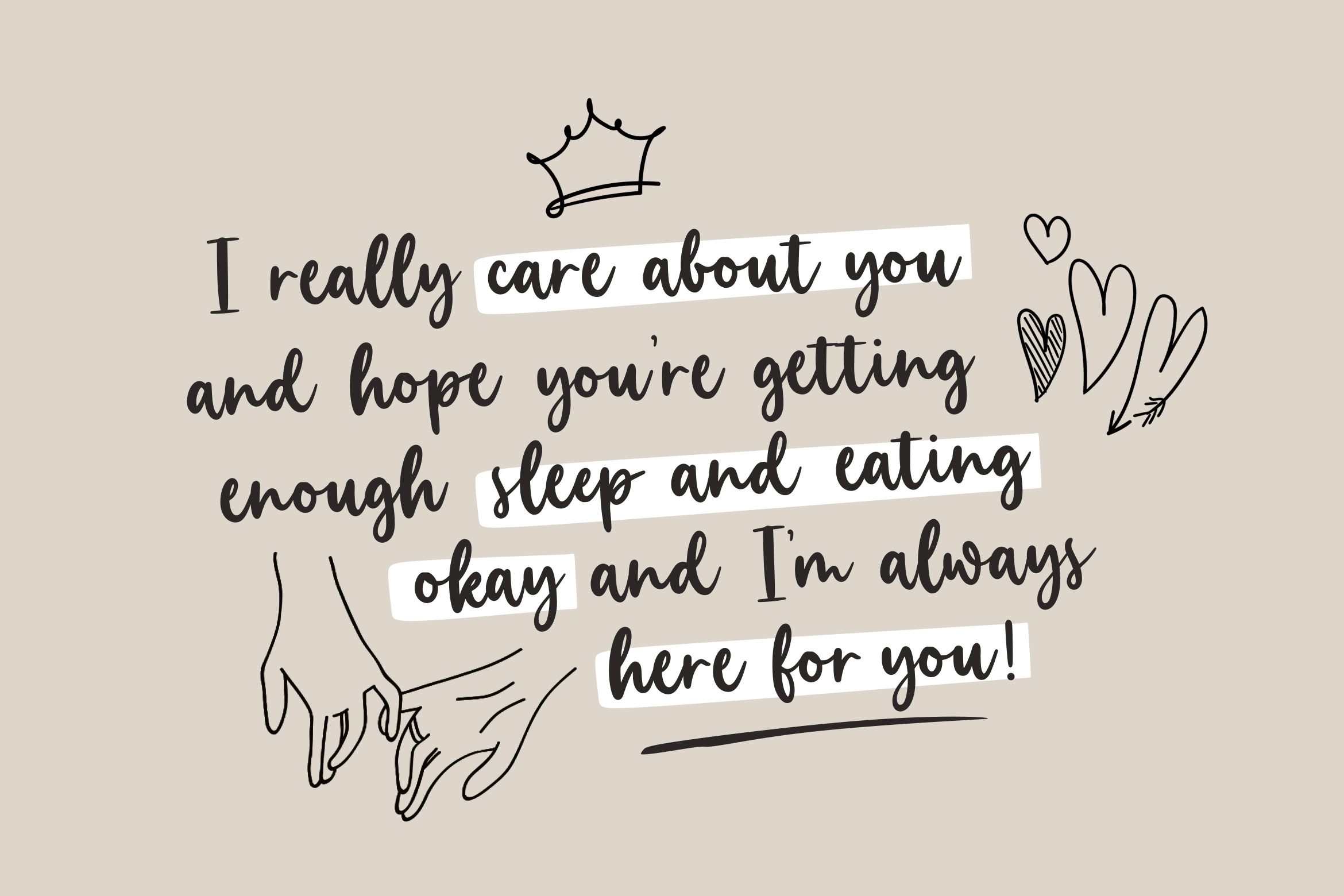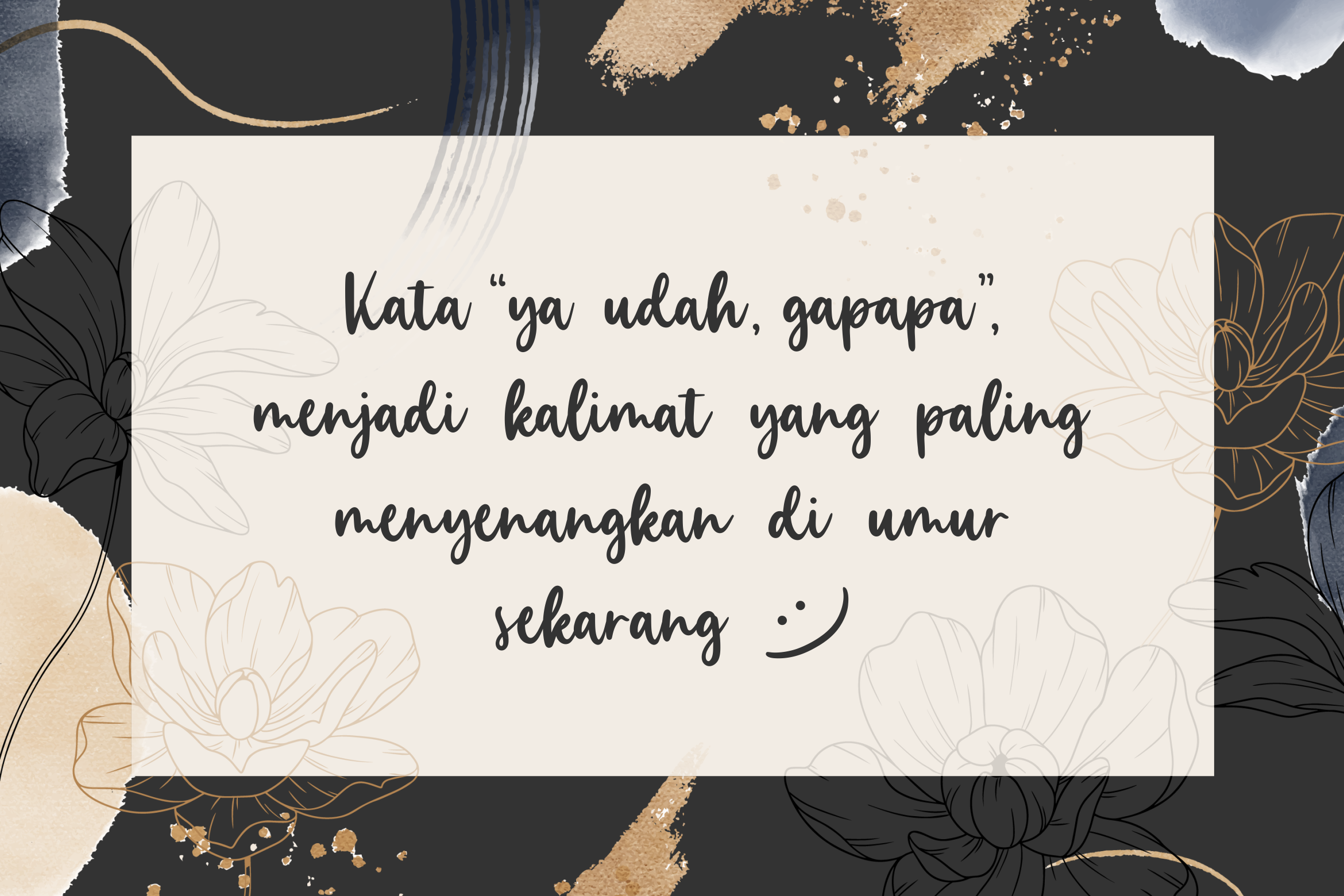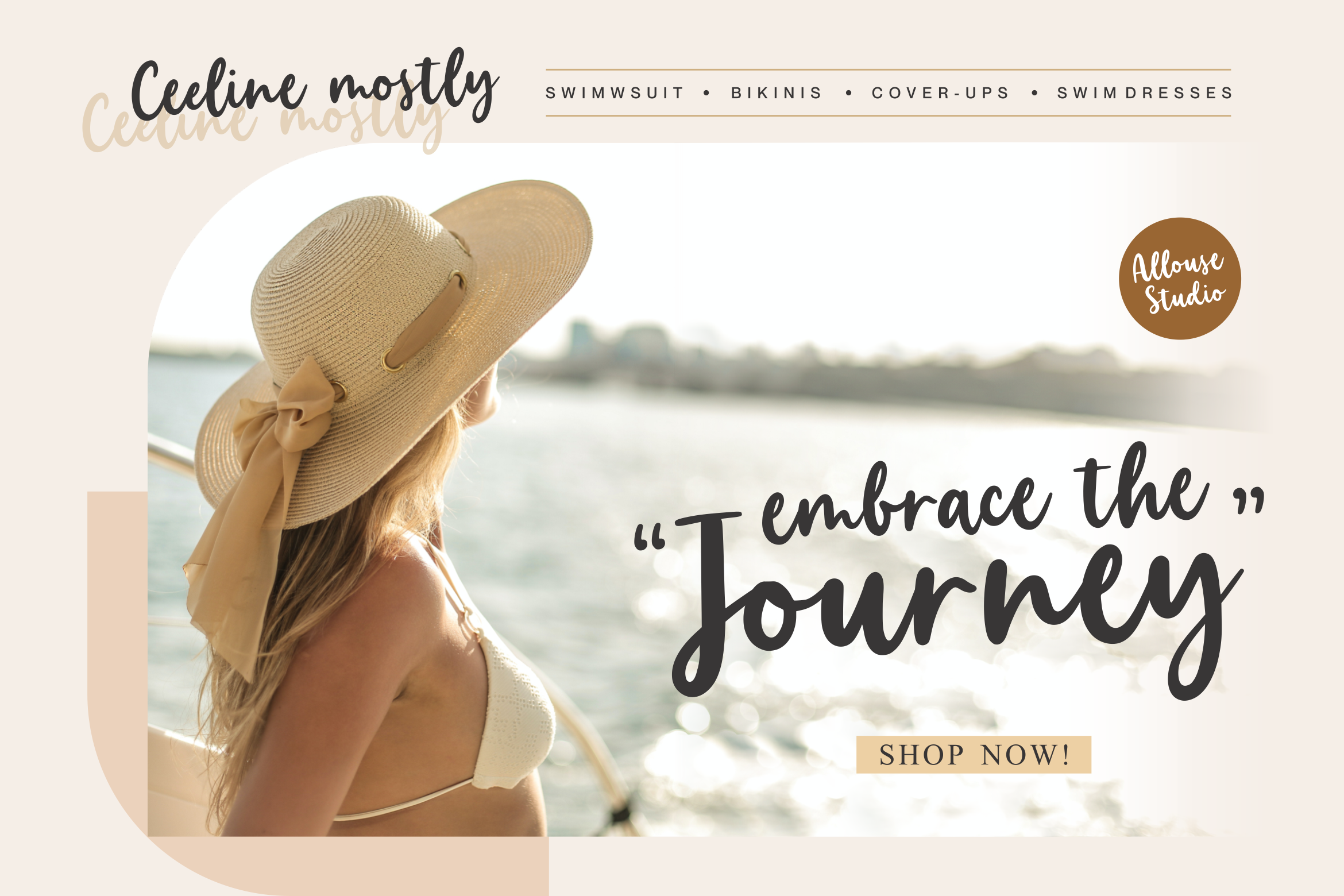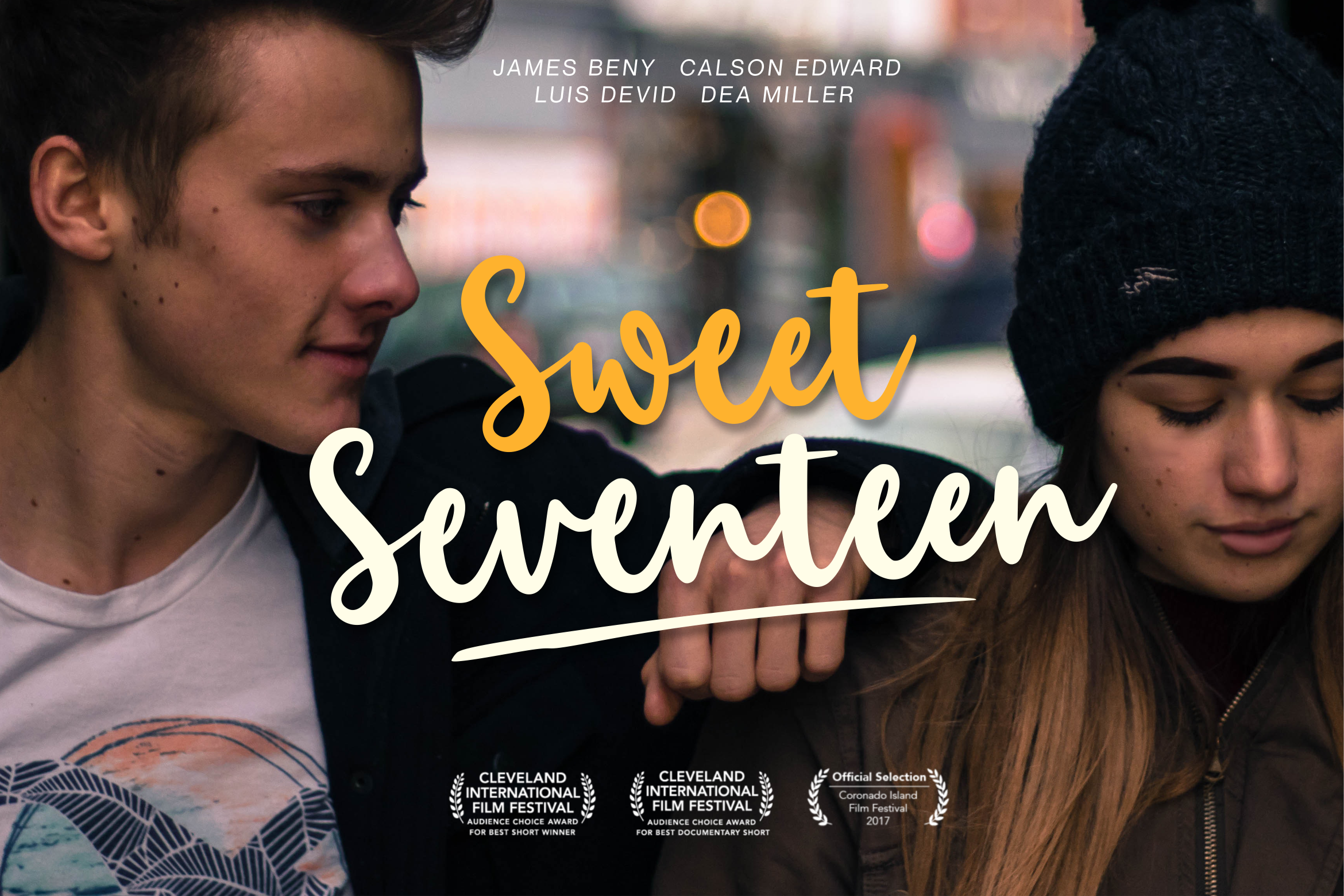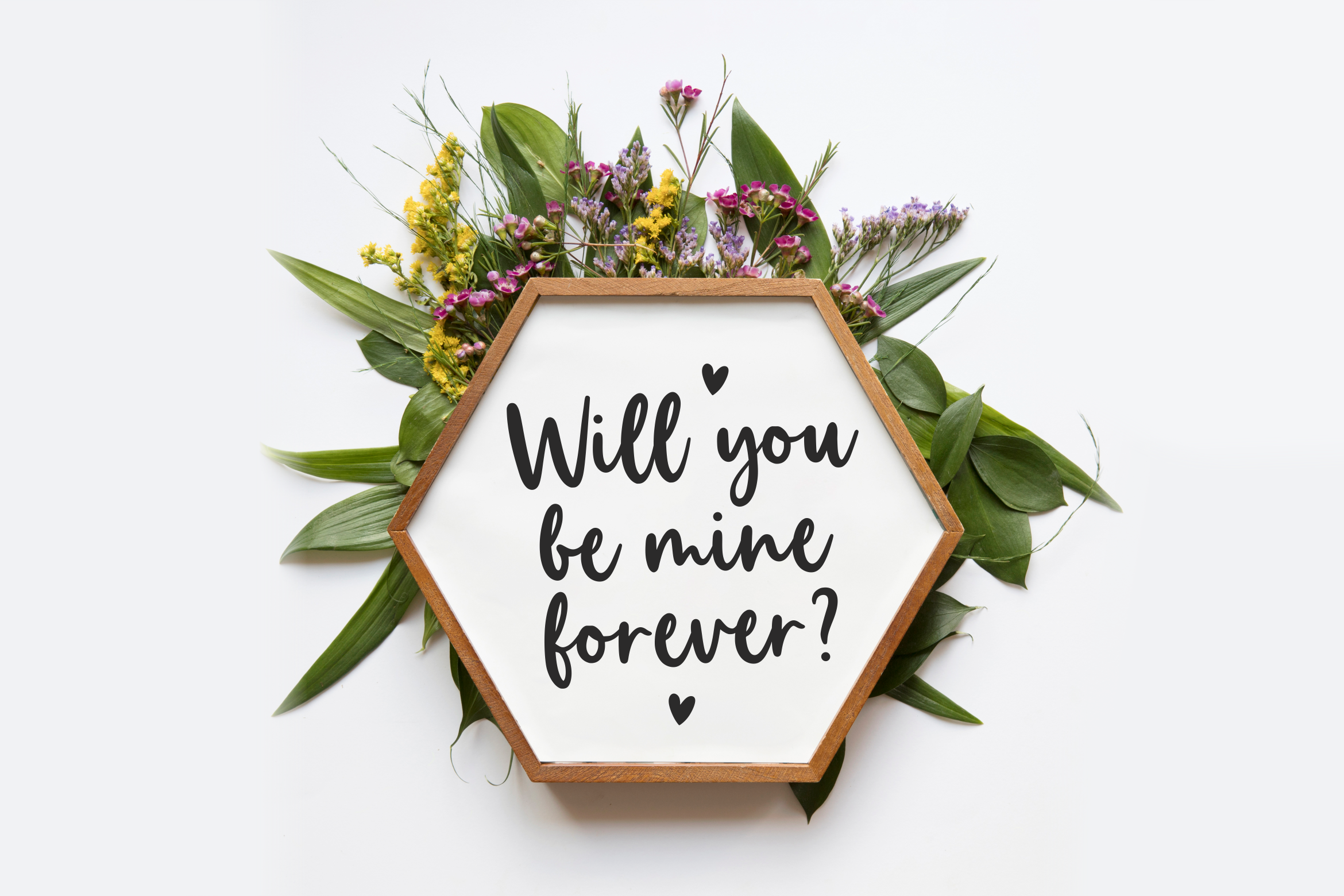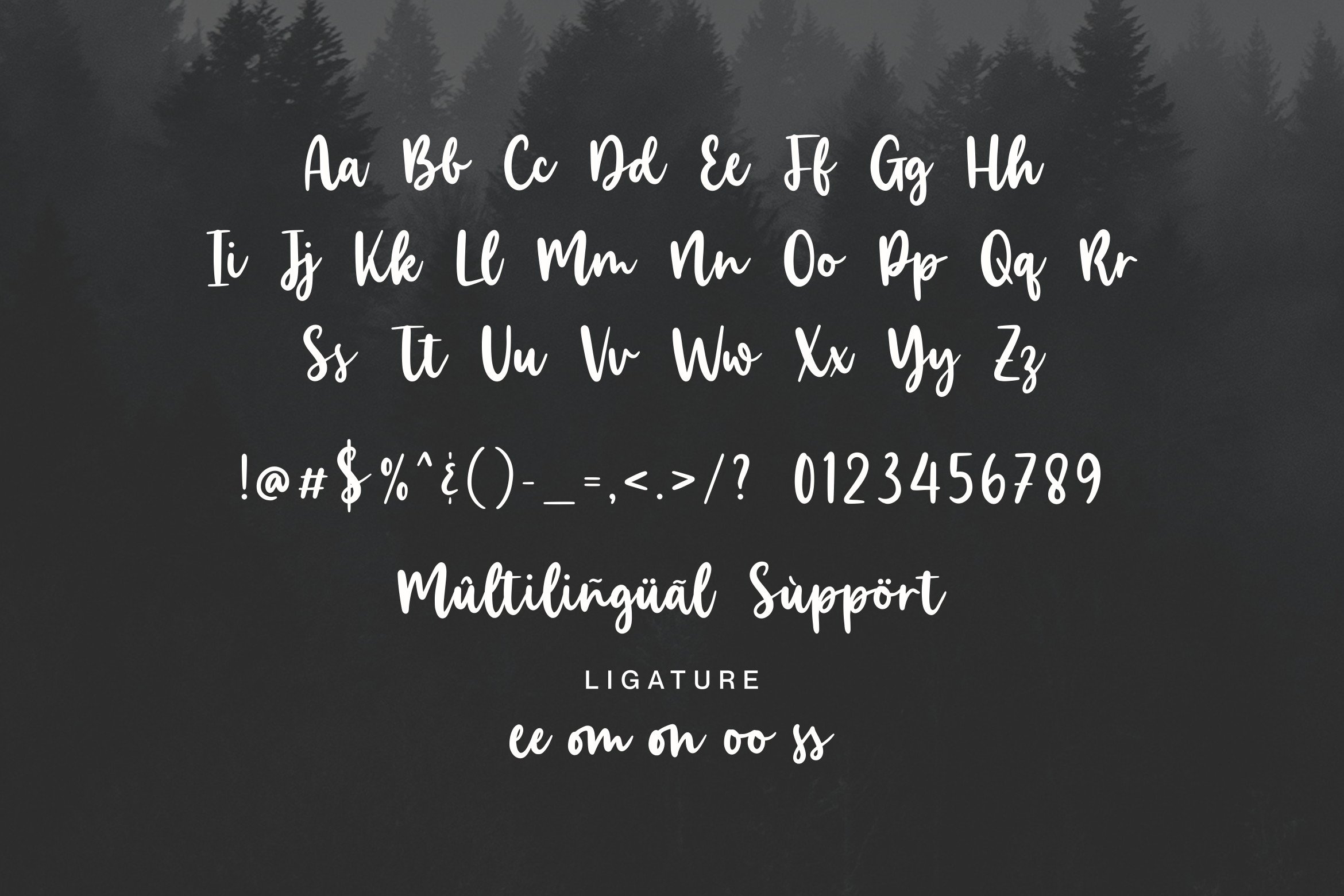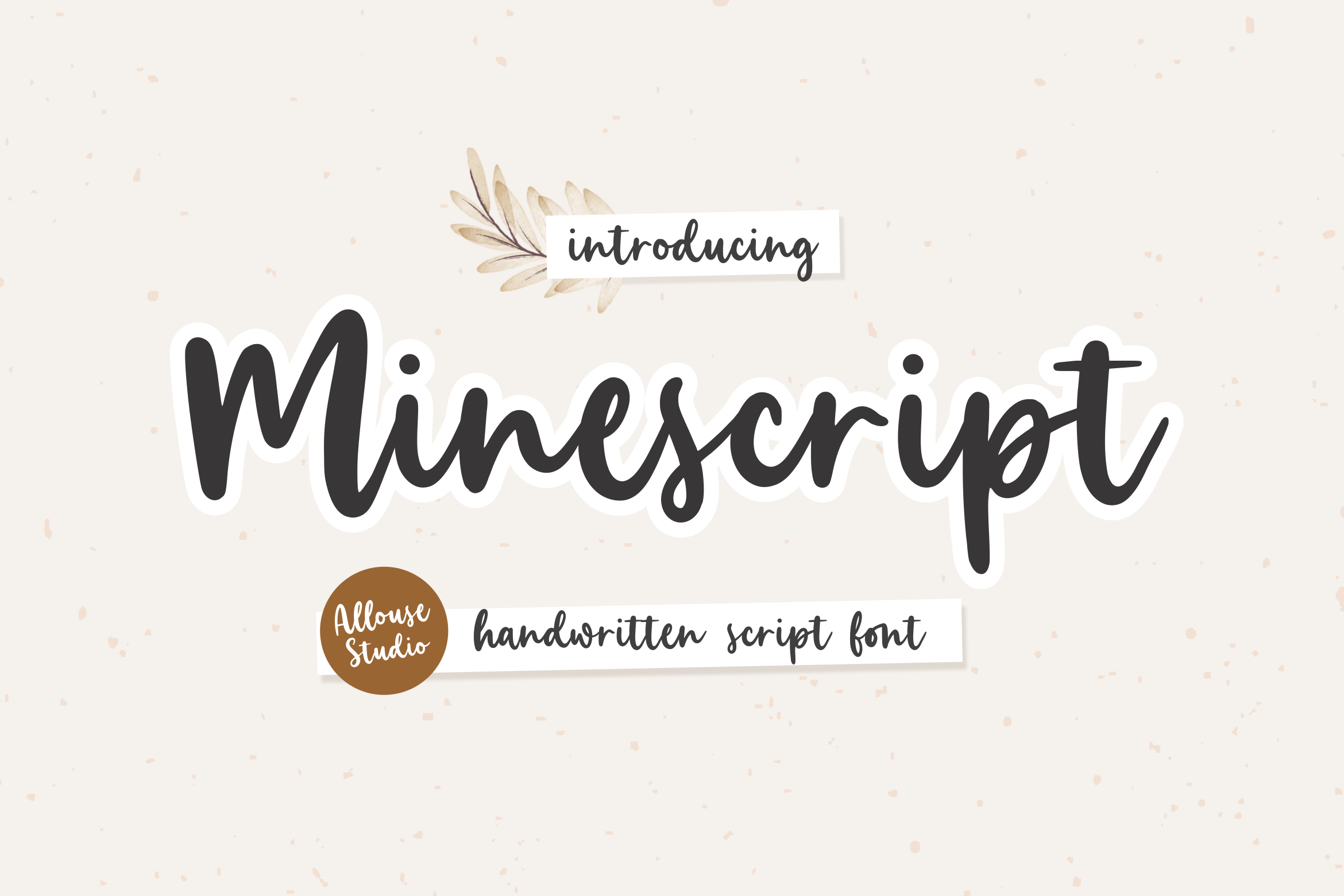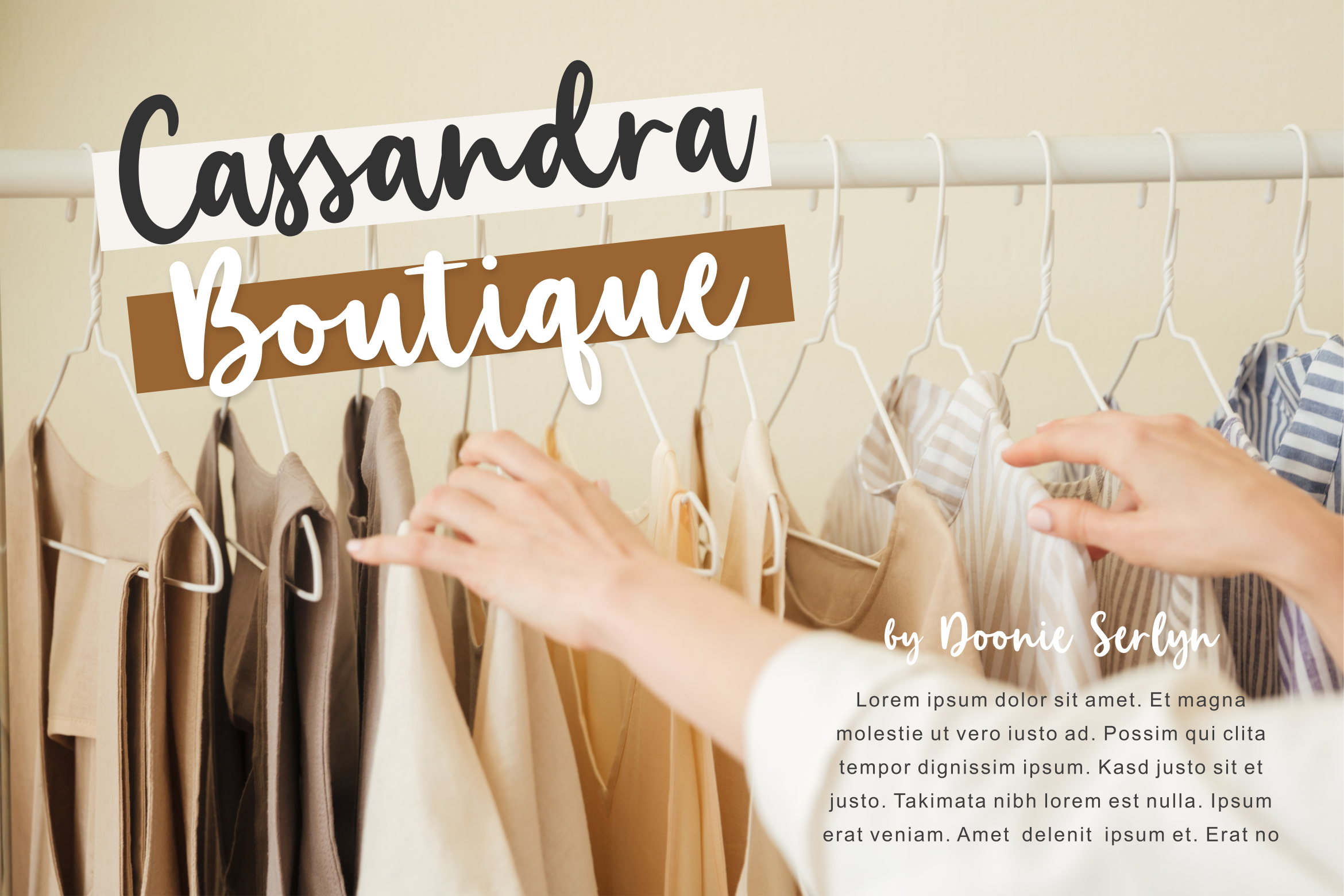
Proudly Presenting, Minescript A Handwritten Script Font. Minescript is perfect for any titles, logo, product packaging, branding project, megazine, social media, wedding, or just used to express words above the background. Minescript also come with Multi-Lingual Support. Enjoy the font, feel free to comment or feedback, send me PM or email. Thank You! | Minescript A Handwritten Script Font | Allouse Studio